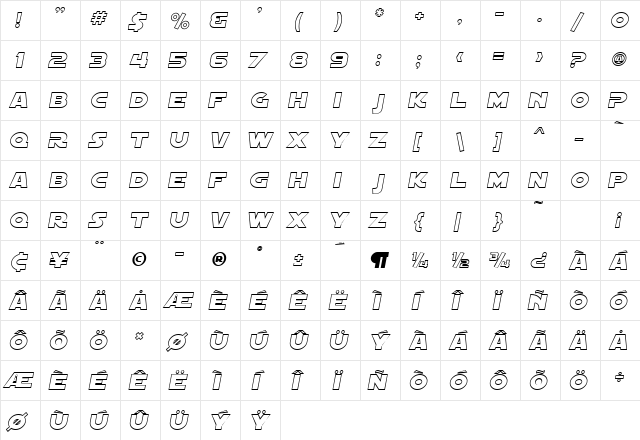
SF Distant Galaxy Outline Italic
Design Context for SF Distant Galaxy Outline Typeface
SF Distant Galaxy Outline brings ornamental detail and strong personality to headlines and identities, where visual impact matters more than quiet functionality. Its italic angle brings a sense of urgency and motion to the letterforms.
Font Pairing: Pair with a clean neutral sans-serif for body copy to let SF Distant Galaxy Outline's character lead without overwhelming the composition.
Pro Tip: Use SF Distant Galaxy Outline exclusively at display sizes — it was designed to be seen, not read at length. Let a neutral companion handle body copy.